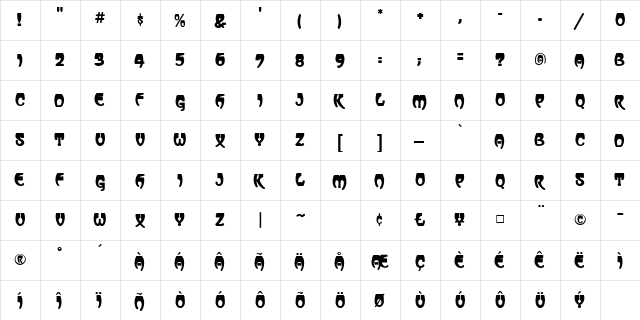
Vassar Regular
Design Context for Vassar Typeface
Vassar is a composed and adaptable typeface that performs quietly and consistently across a wide range of design contexts.